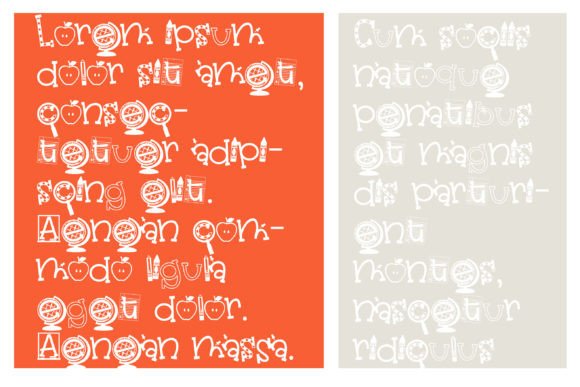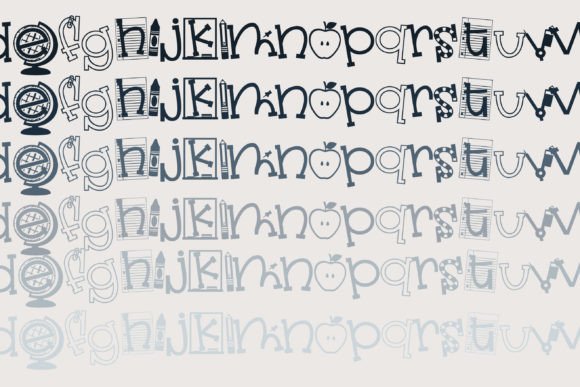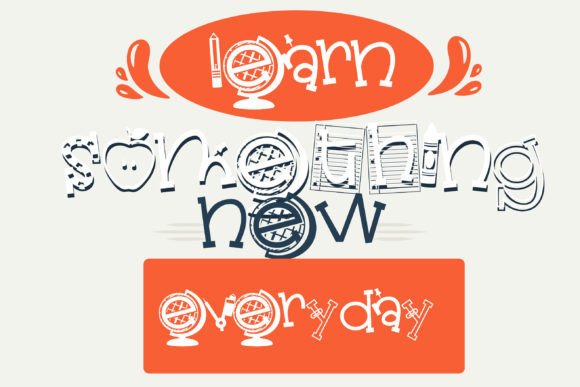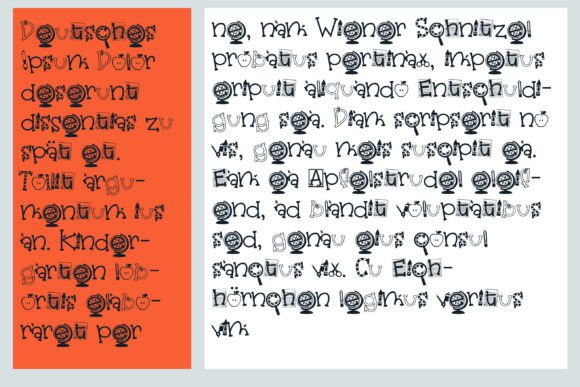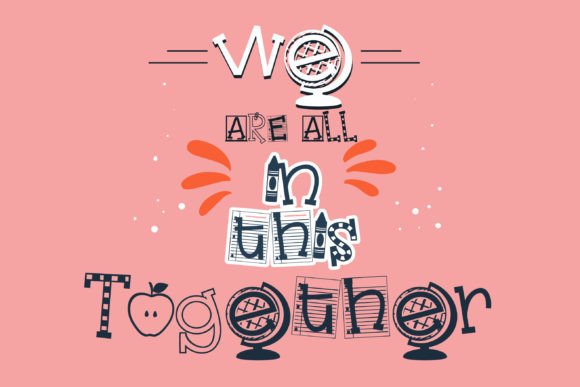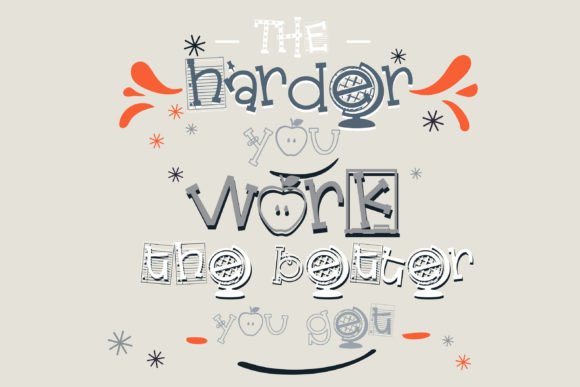
Cutesietoo School Font: A Hand-Crafted, Youthful Font for Creative Projects
Are you a designer or crafter looking for a unique and playful font to add a personal touch to your projects? Look no further than Cutesietoo School Font, a hand-crafted, youthful font that is partially made up of school supplies. In this article, we’ll explore the world of hand-crafted fonts, their uses, and the benefits of using Cutesietoo School Font in your creative endeavors.
A hand-crafted font, also known as a handwritten font, is a typeface that is designed to mimic the look of handwriting. It’s a font that is created to look like it was written by hand, with all the imperfections and quirks that come with it. Hand-crafted fonts can be either formal or informal, and they can be used for a wide range of purposes, from invitations and greeting cards to posters and digital media.
The Charm of Hand-Crafted Fonts
Hand-crafted fonts have a certain charm and character that is hard to replicate with traditional fonts. They can add a personal touch to your projects, making them stand out from the crowd. Here are some of the benefits of using hand-crafted fonts:
- Uniqueness: Hand-crafted fonts are one-of-a-kind, making your projects truly unique and eye-catching.
- Personality: Hand-crafted fonts can convey a sense of personality and whimsy, adding a touch of warmth and friendliness to your projects.
- Flexibility: Hand-crafted fonts can be used for a wide range of projects, from formal events to casual social media posts.
Cutesietoo School Font: A Font Like No Other
Cutesietoo School Font is a hand-crafted, youthful font that is partially made up of school supplies. It’s a playful and fun font that is perfect for designers and crafters who want to add a touch of whimsy to their projects. Here are some of the features that make Cutesietoo School Font special:
- School Supply Inspiration: Cutesietoo School Font is inspired by school supplies, making it a unique and quirky font that’s perfect for back-to-school projects, educational materials, and more.
- Hand-Crafted Look: Cutesietoo School Font has a hand-crafted look that is reminiscent of handwritten notes and doodles.
- Youthful Vibe: Cutesietoo School Font has a youthful and playful vibe that’s perfect for projects aimed at kids and young adults.
Using Cutesietoo School Font in Your Projects
Cutesietoo School Font is a versatile font that can be used in a wide range of projects. Here are some ideas to get you started:
- Invitations and Greeting Cards: Use Cutesietoo School Font to create playful and fun invitations and greeting cards for birthdays, graduations, and other special occasions.
- Educational Materials: Cutesietoo School Font is perfect for educational materials, such as worksheets, activity sheets, and educational posters.
- Digital Media: Use Cutesietoo School Font in your digital media projects, such as social media graphics, blog posts, and video scripts.
Cutesietoo School Font is a hand-crafted, youthful font that is partially made up of school supplies. Its unique and playful design makes it perfect for designers and crafters who want to add a touch of whimsy to their projects. With its versatility and charm, Cutesietoo School Font is sure to become a favorite in your font collection. So why not give it a try and see what creative projects you can come up with?
Whether you’re a designer, crafter, or educator, Cutesietoo School Font is a great addition to your toolkit. Its hand-crafted look and playful vibe make it perfect for a wide range of projects, from invitations and greeting cards to educational materials and digital media. So go ahead, get creative, and have fun with Cutesietoo School Font!